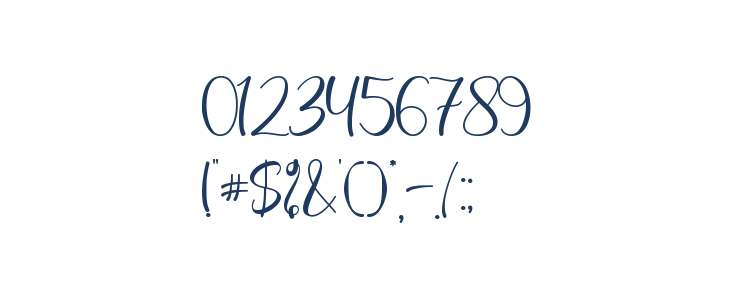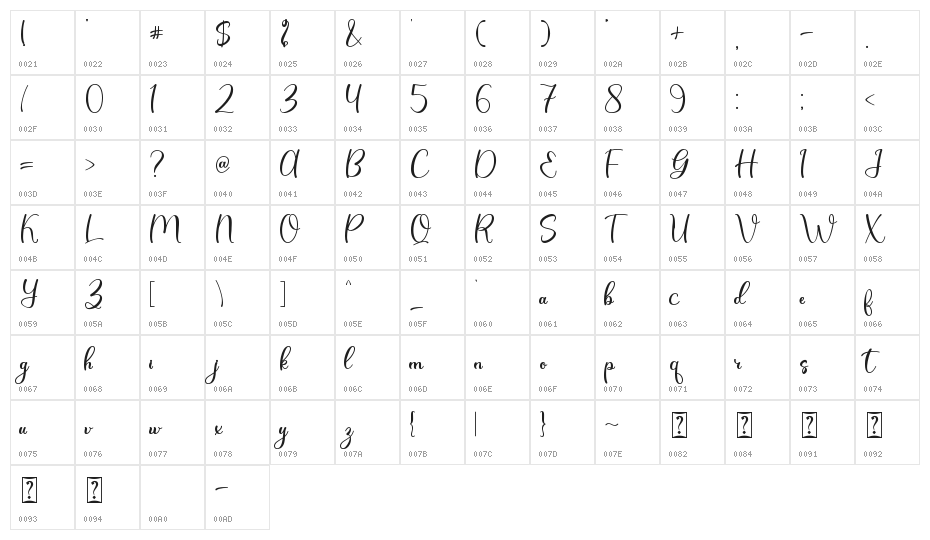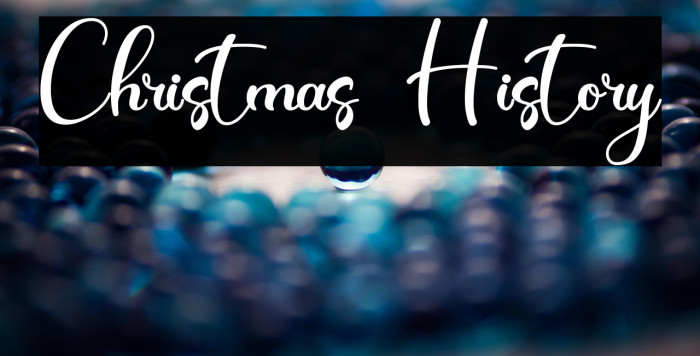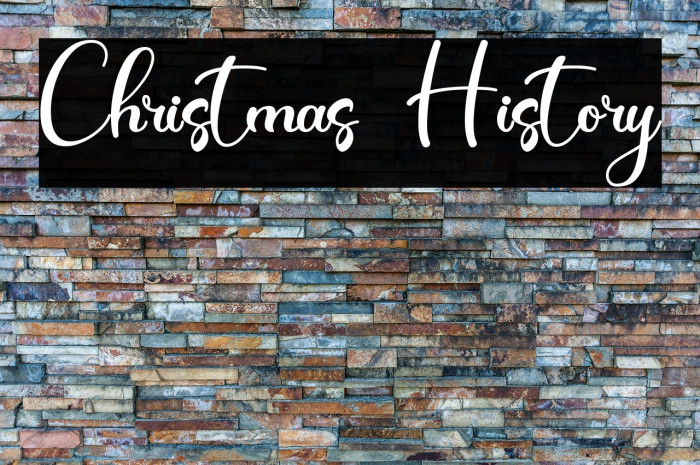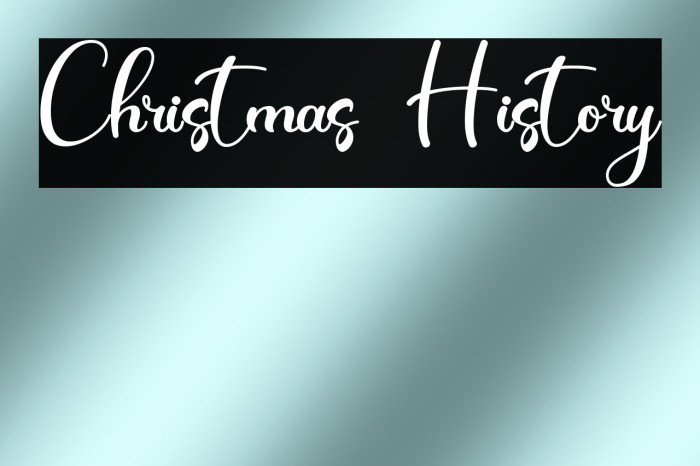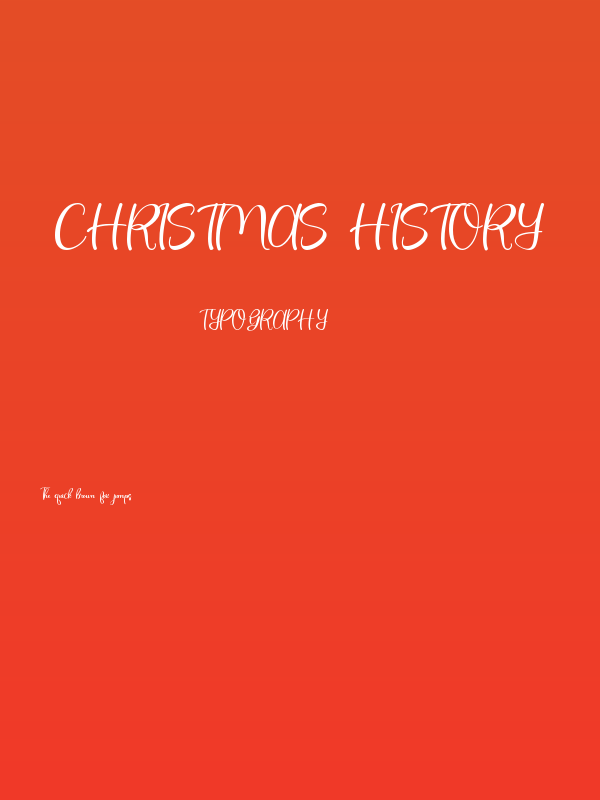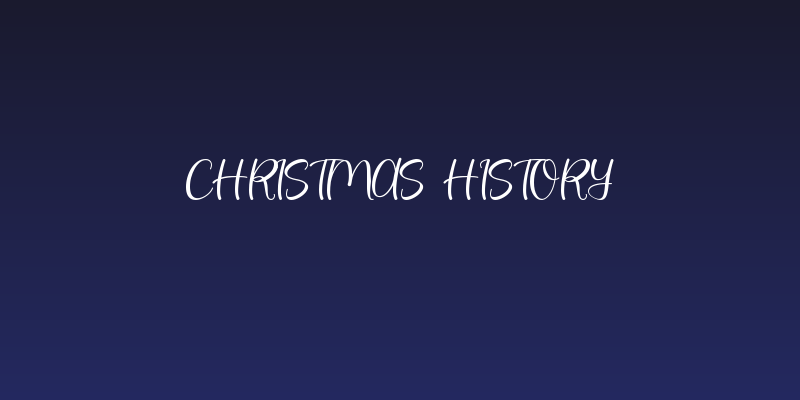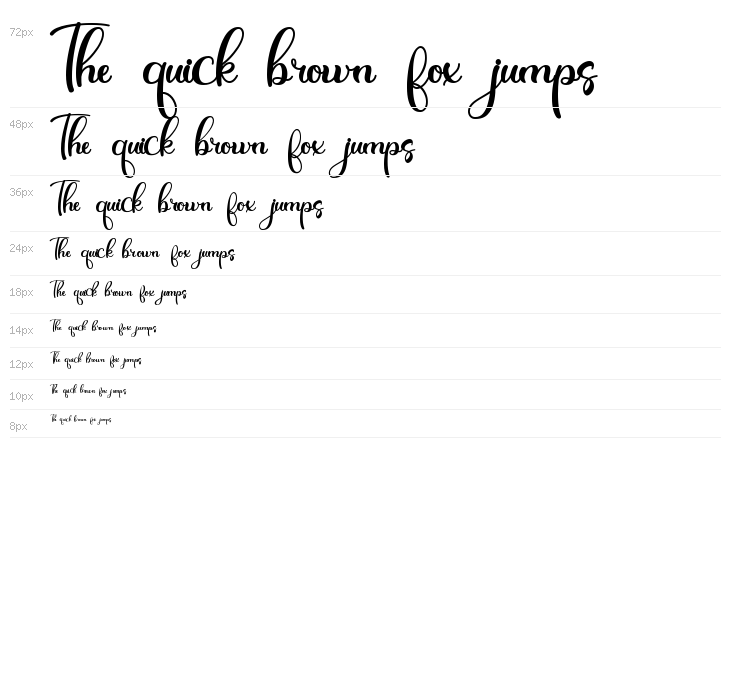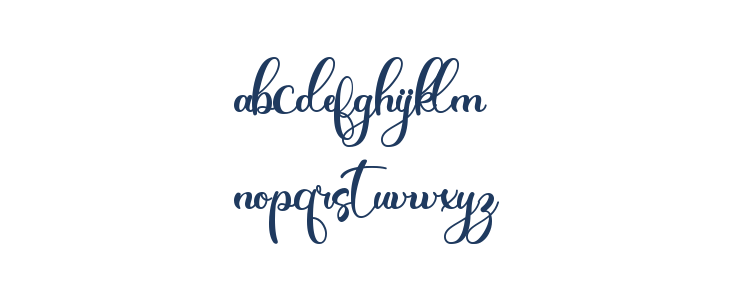
Christmas History Font
Christmas History Description
This elegant script font features flowing, cursive letters with a whimsical and festive flair. The uppercase letters are tall and graceful, with sweeping curves and loops that give a sense of movement and fluidity. The lowercase letters complement the uppercase with their own delicate loops and swashes, creating a harmonious and cohesive look. The numerals are stylish and consistent with the overall script style, while the special characters add a touch of charm with their unique designs. This font exudes a sense of celebration and joy, making it perfect for holiday-themed projects.
| Proposed Projects | Ideal for holiday cards, festive invitations, seasonal branding, and decorative signage. |